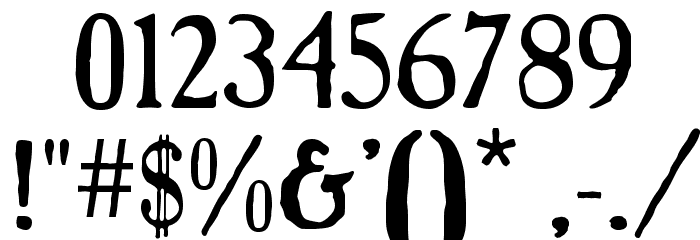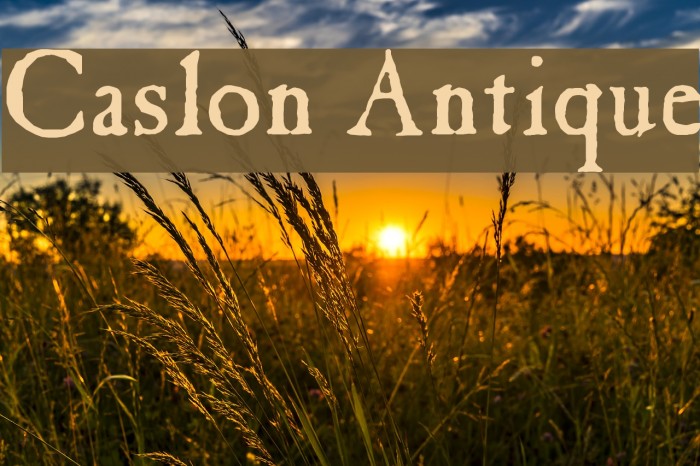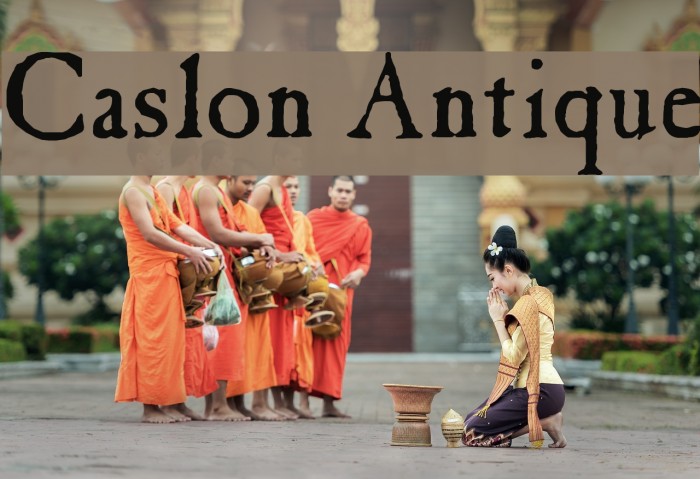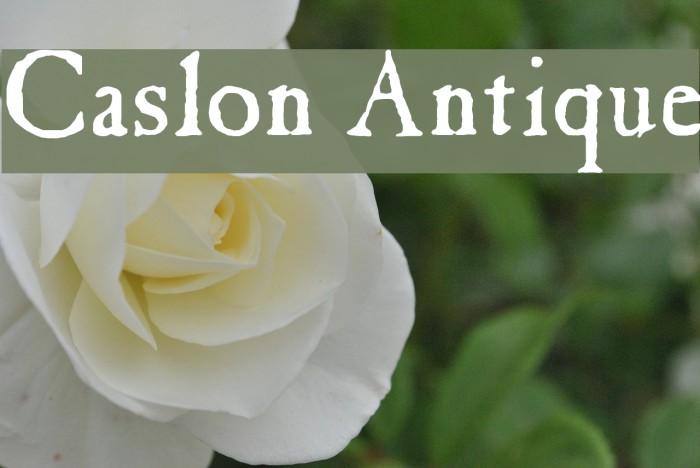
Caslon Antique Font
Caslon Antique Description
This font exudes a vintage charm with its irregular, slightly distressed appearance, reminiscent of old printed materials. The characters have a unique, hand-crafted feel, with uneven edges and varying stroke widths that add to its antique aesthetic. The uppercase letters are bold and commanding, while the lowercase letters maintain a consistent style, offering a harmonious blend of elegance and rustic appeal. The numerals and special characters follow the same design principles, ensuring a cohesive look across all text elements. This font is ideal for projects that aim to evoke a sense of history or nostalgia.
A vintage, distressed font with an antique, hand-crafted appearance.
- Font: Caslon Antique
- Proposed Projects: Perfect for historical documents, vintage-themed designs, book covers, and posters.
- Overall Style: Vintage